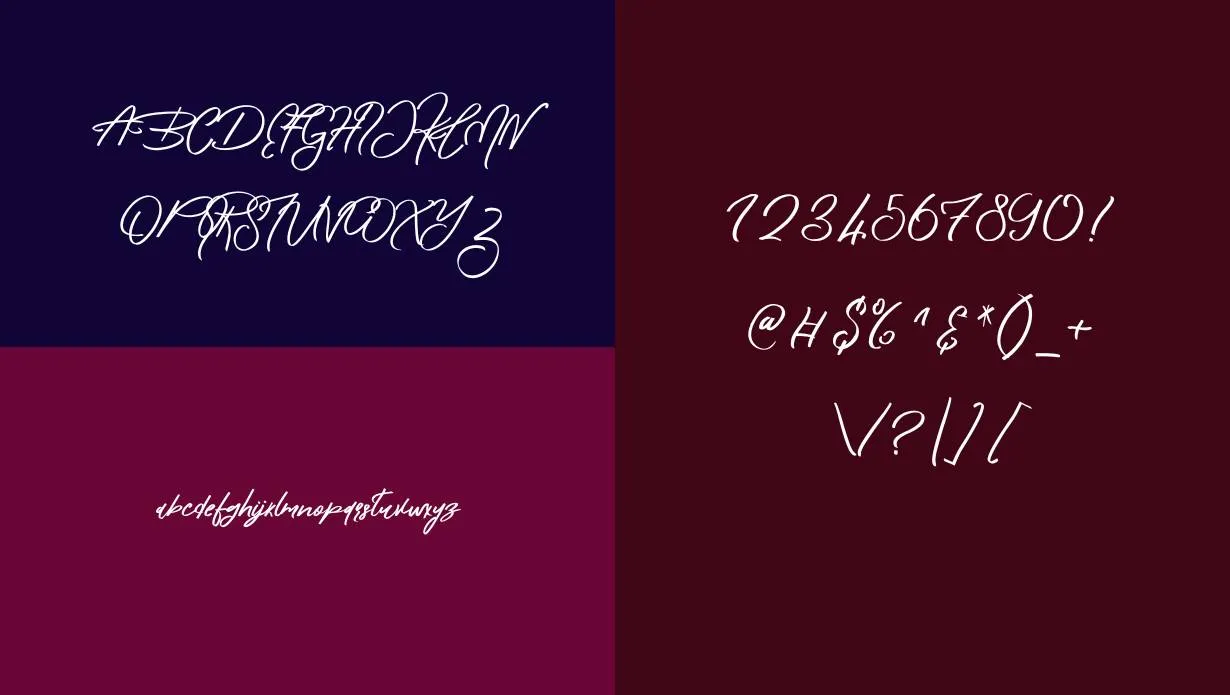
Kensington font is the epitome of sophistication, making it an ideal choice for formal invitations or high-end product labels. Your words will exude timeless style and class, like a graceful dancer at a royal ball.
The font’s weight is polished and sophisticated, and its elegantly proportioned width adds a refined touch. Choose Kensington to give your text an air of elegance and timeless beauty.